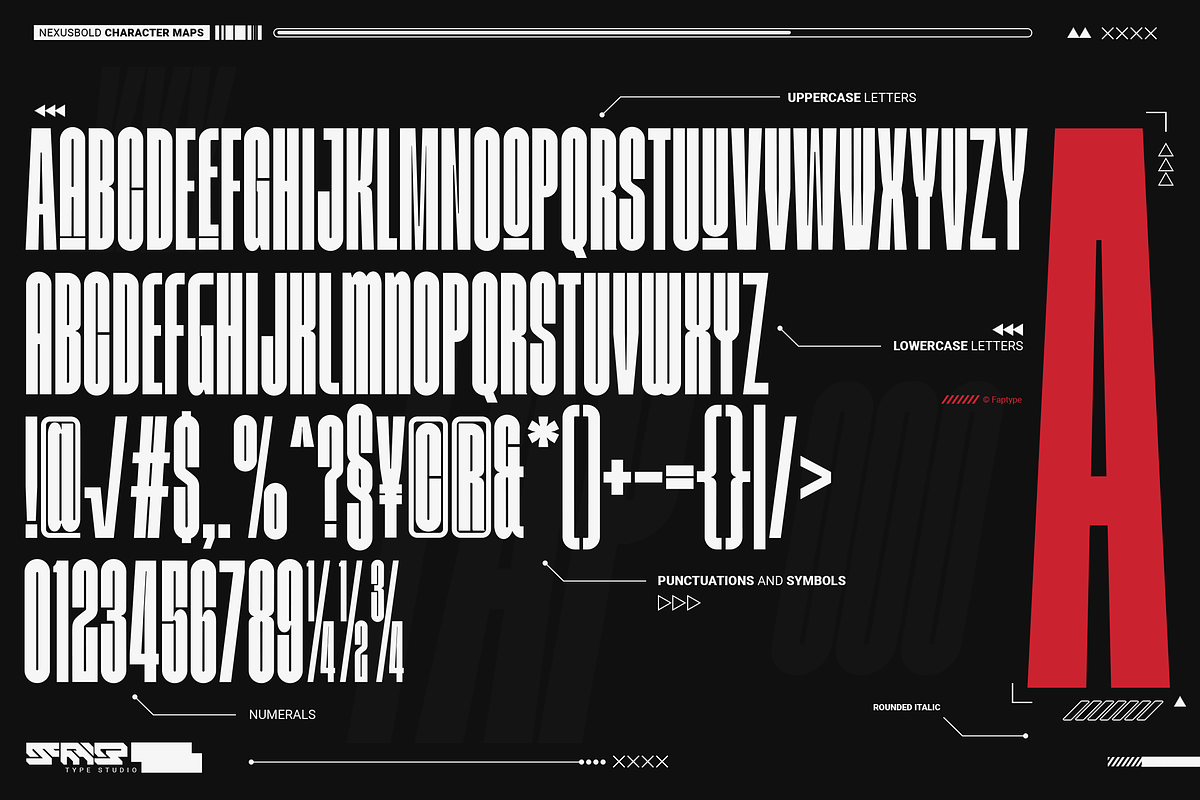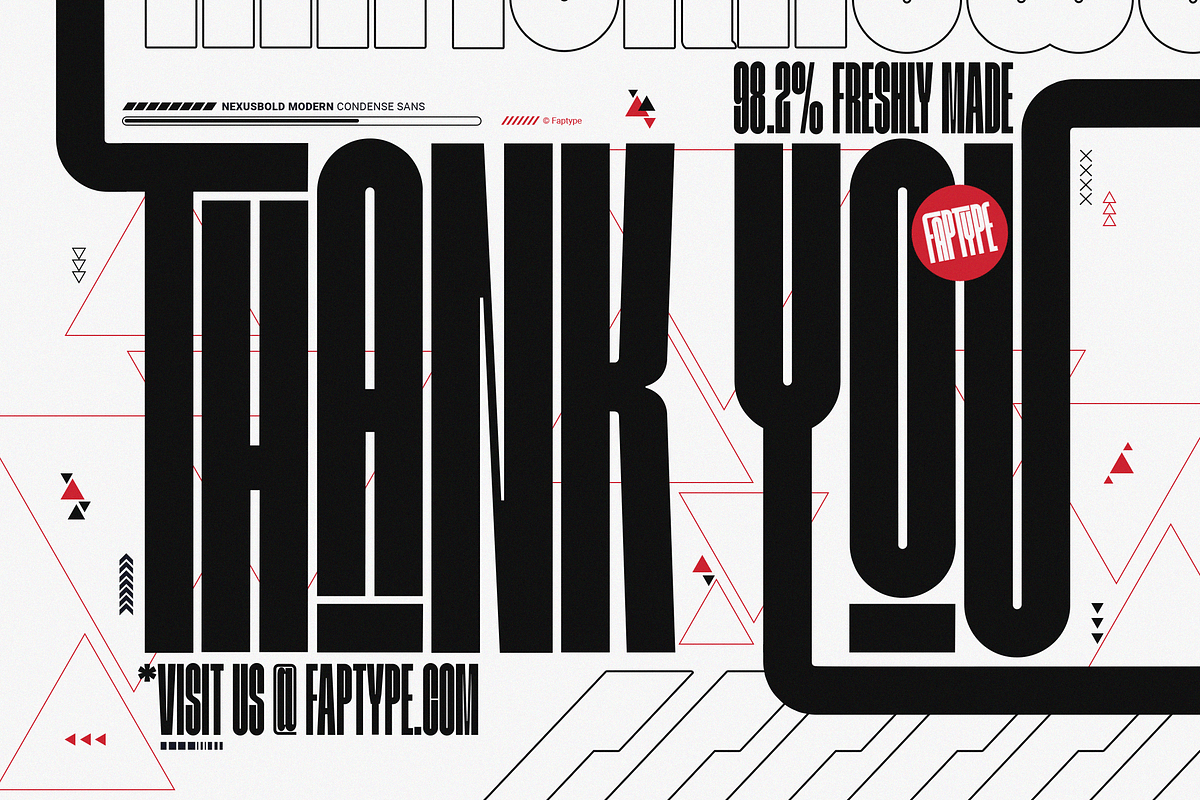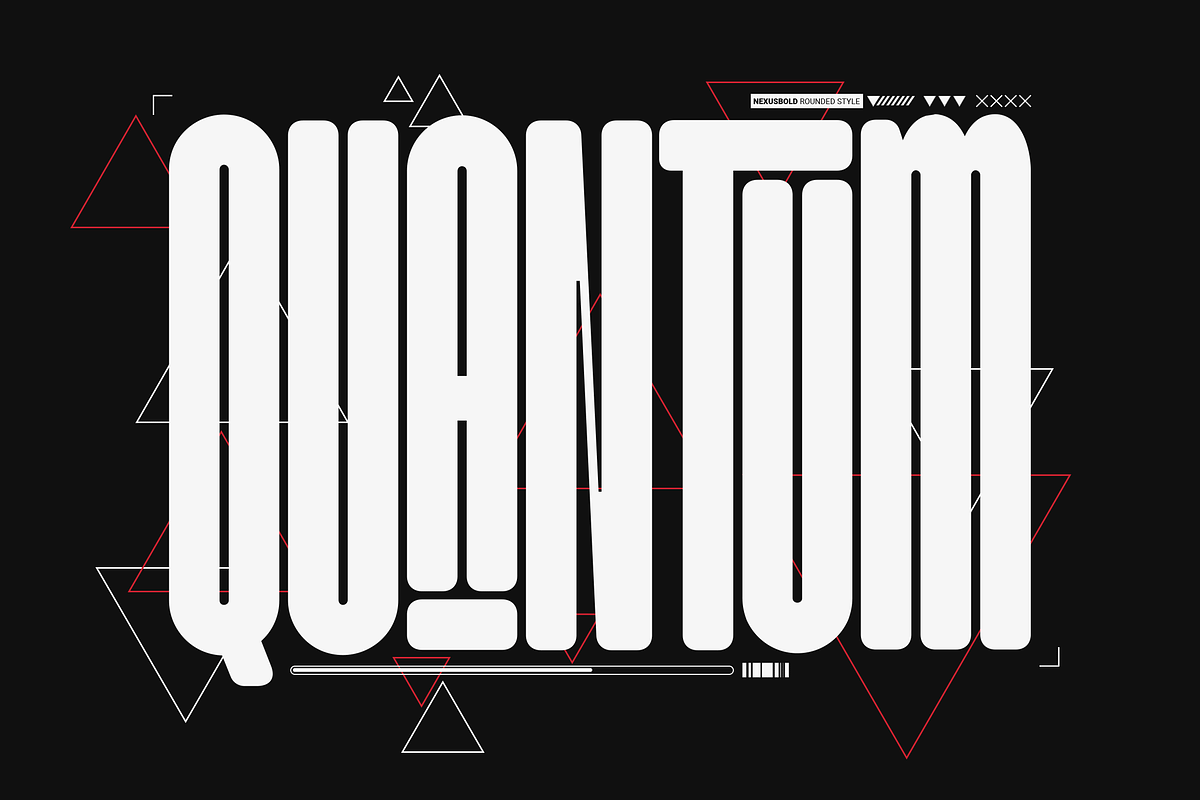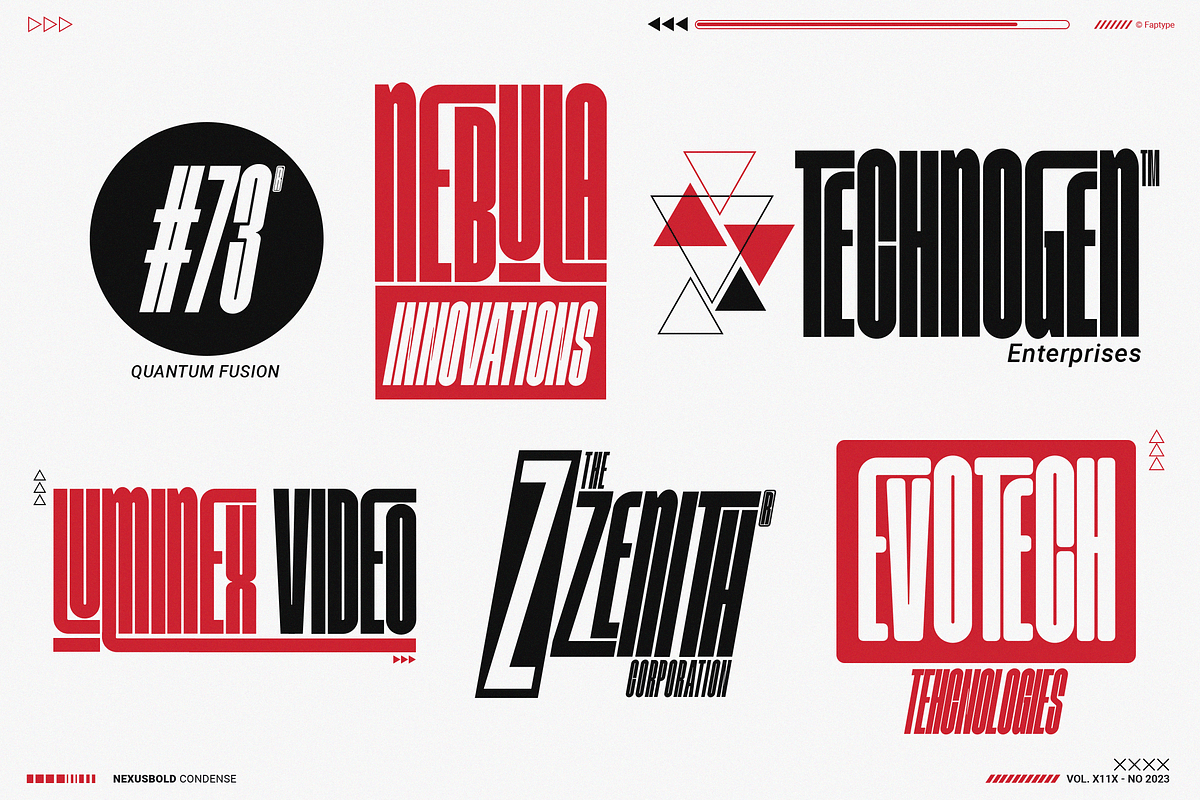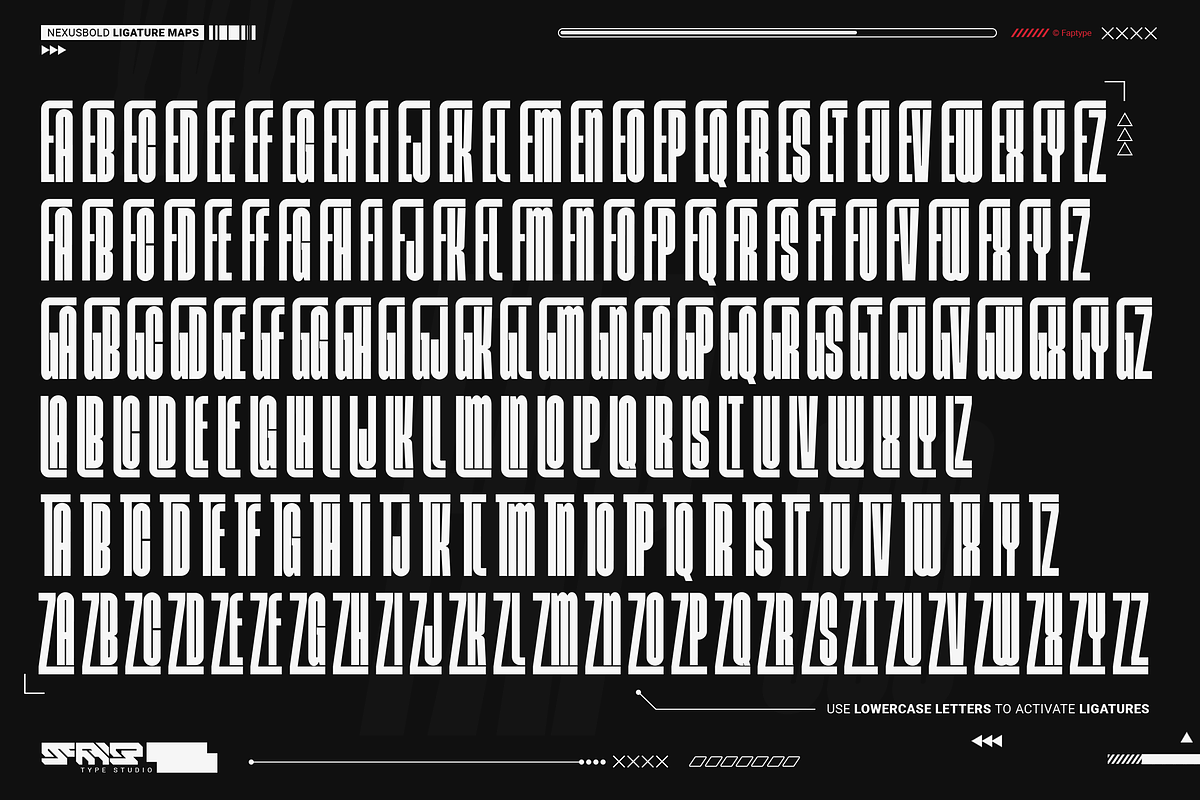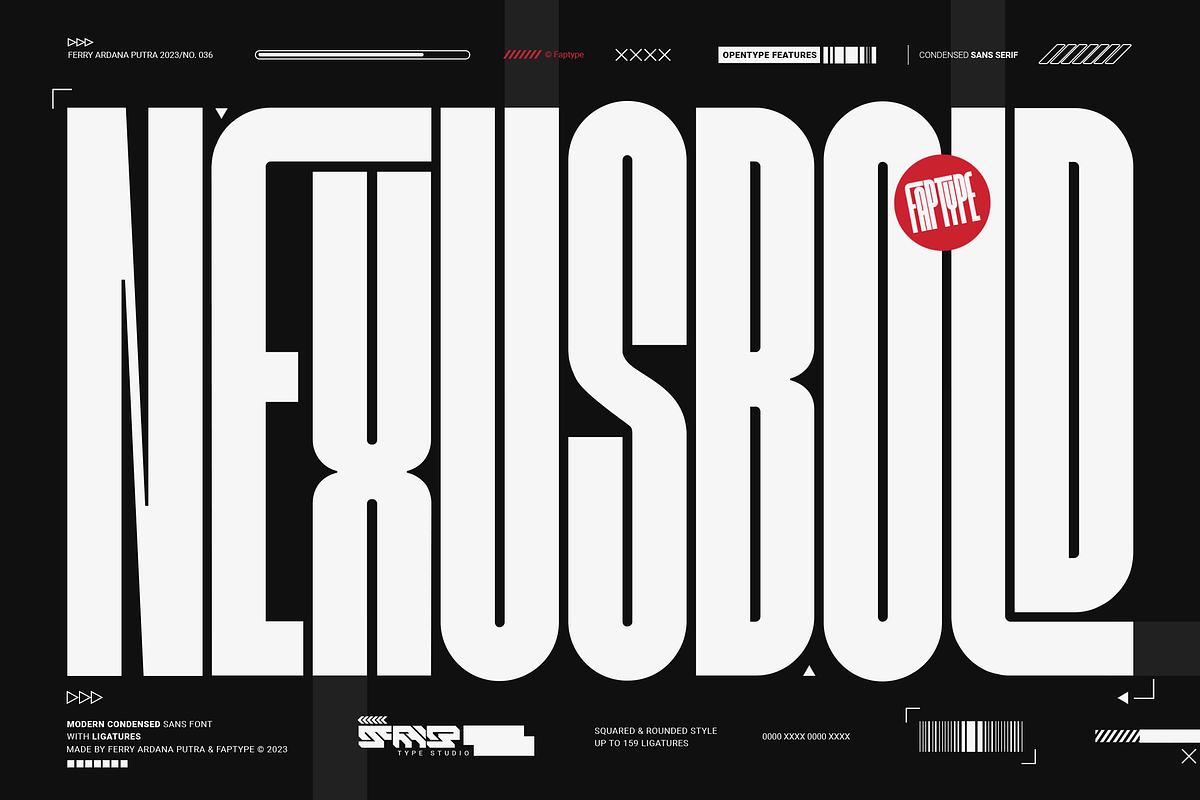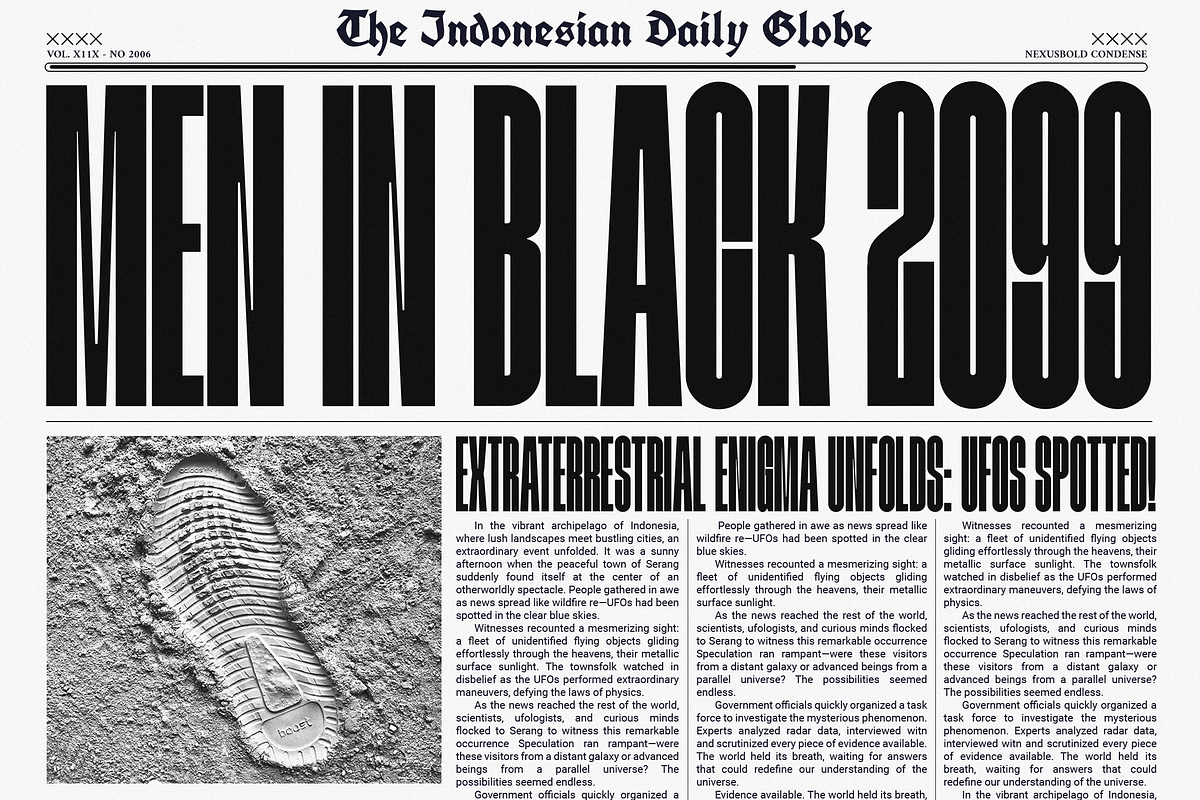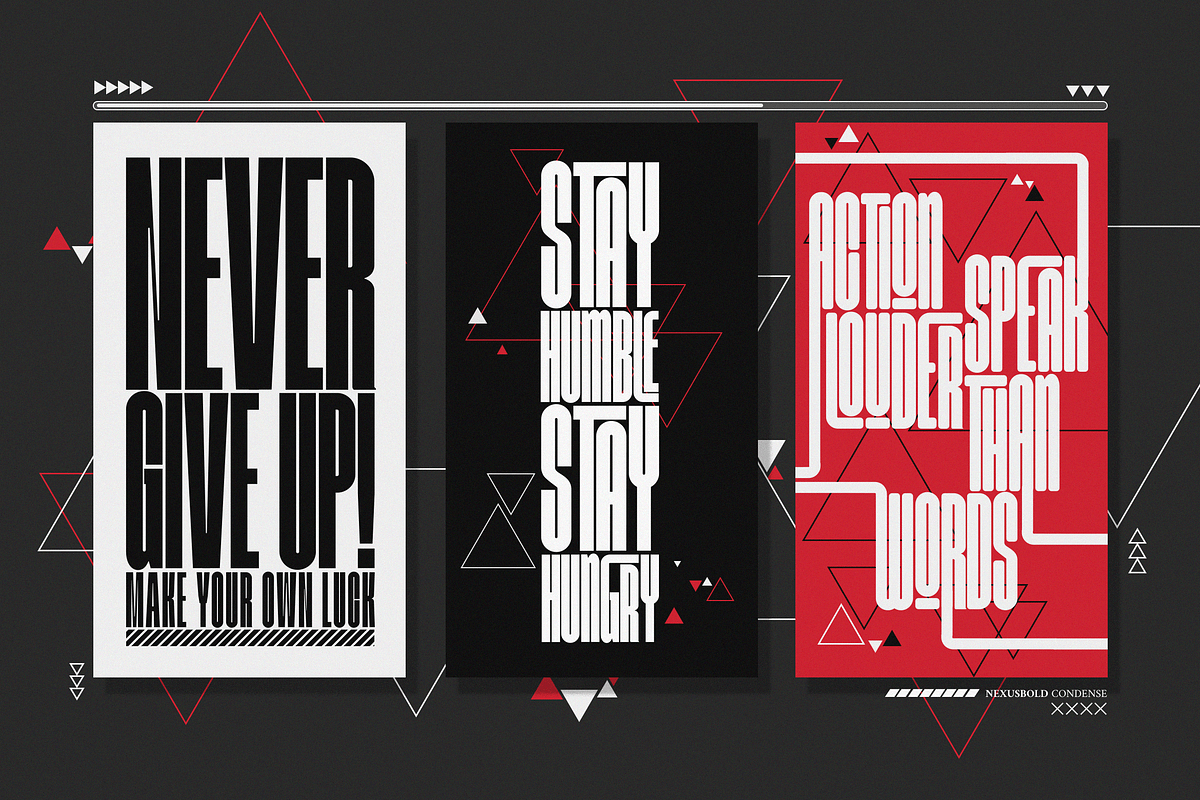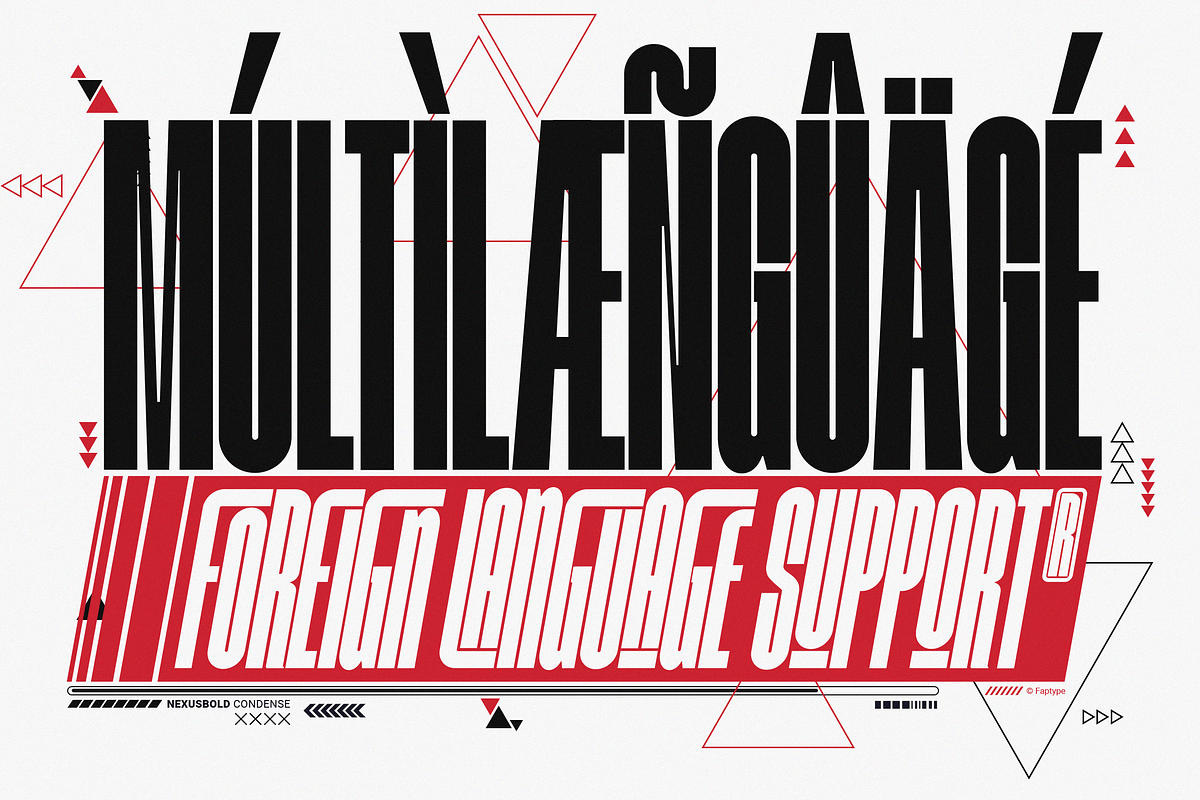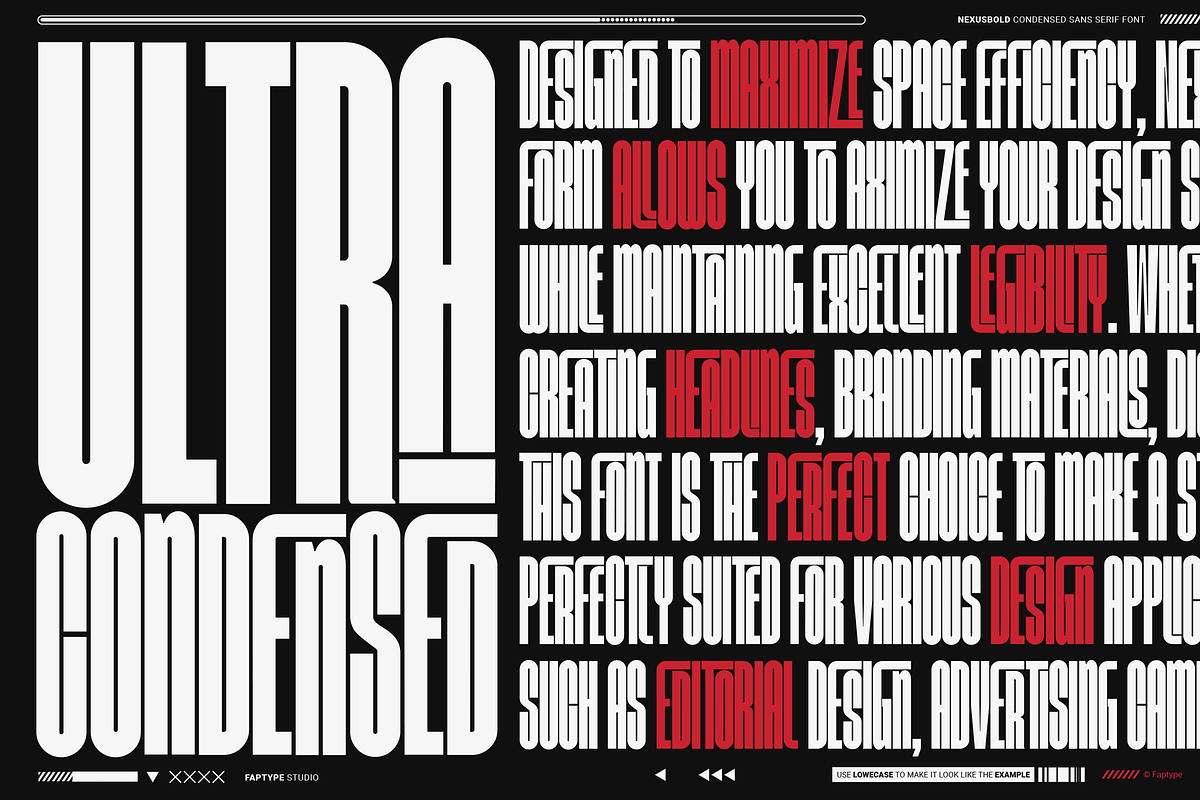
Nexusbold | Modern Condensed Sans
Introducing Nexusbold, a modern condensed sans font that redefines typographic excellence. With its sleek and contemporary design, Nexusbold is the epitome of elegance and functionality, enhanced by an extensive array of meticulously crafted ligatures.
Nexusbold's condensed form is carefully crafted to optimize space without compromising legibility. Whether you're creating headlines, logos, packaging, or web designs, this font's compact structure ensures a visually striking impact that commands attention.
But what truly sets Nexusbold apart is its vast collection of expertly designed ligatures. With an abundance of ligatures at your disposal, Nexusbold empowers you to create seamless connections between characters, infusing your typography with a sense of fluidity and artistry. These ligatures add a touch of sophistication, taking your designs to new heights and captivating viewers with their visual allure.
Nexusbold is a versatile font suitable for a myriad of design applications, including editorial layouts, branding materials, advertising campaigns, and digital interfaces. Its modern condensed sans style exudes a sense of professionalism and contemporary aesthetics, making it the perfect choice for projects that demand a refined and sleek visual identity.
Whether you're pursuing a minimalistic, high-tech, or cutting-edge look, Nexusbold provides the ideal canvas for your creativity. Its modern condensed form, coupled with a plethora of ligatures, empowers you to create captivating and memorable designs that stand out from the crowd.
In summary, Nexusbold is an exceptional modern condensed sans font that combines functionality, elegance, and a wealth of ligatures. Unlock the full potential of your typographic endeavors with NexusBold—a font that seamlessly merges form and function, enabling you to craft visually stunning and harmonious designs.
Nexusbold features:
A full set of uppercase
Numbers and punctuation
Multilingual language support
PUA Encoded Characters
OpenType Features
Condensed Style
+400 of Total Glyphs
+156 of Total Ligatures